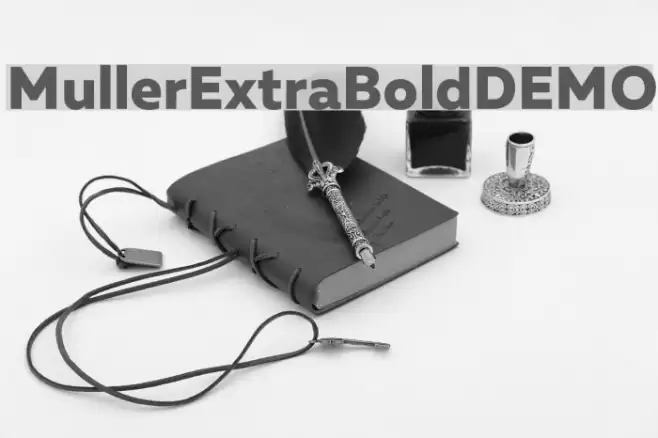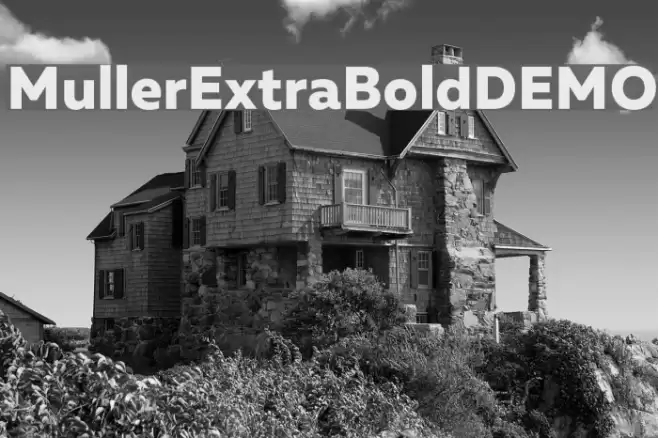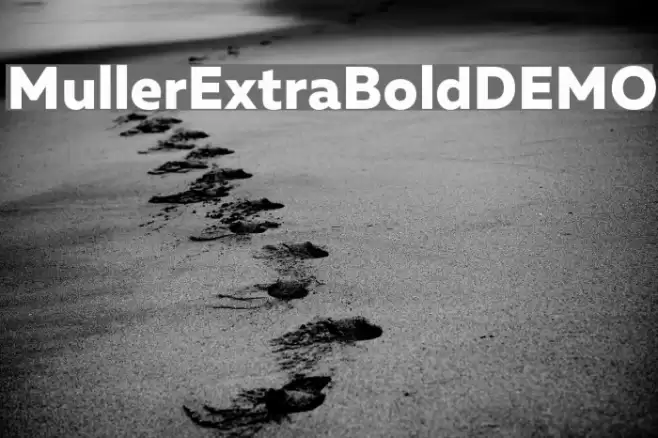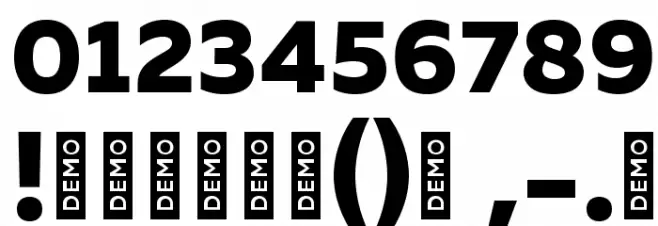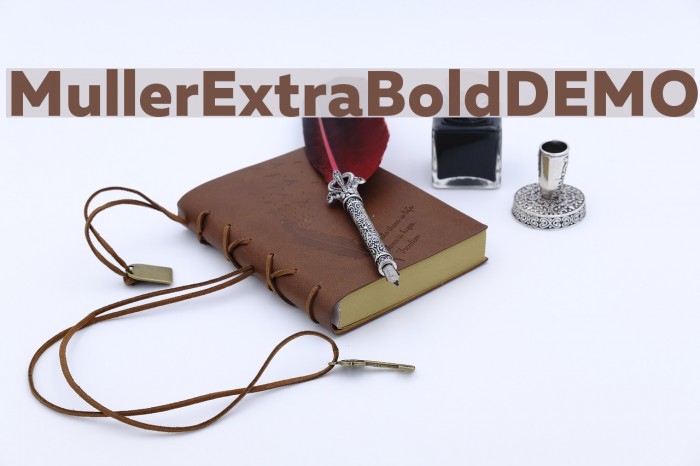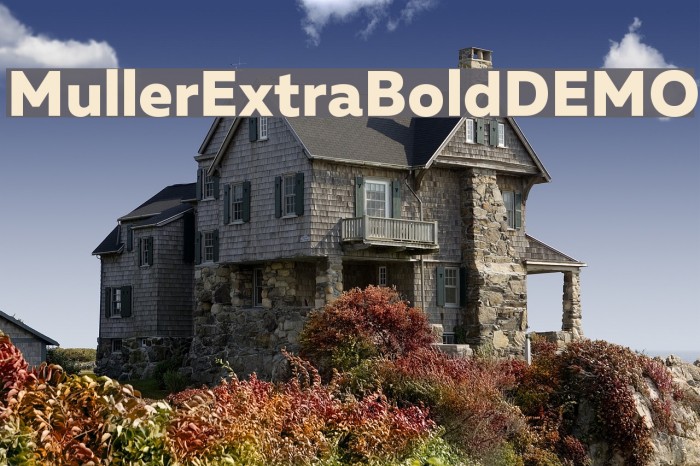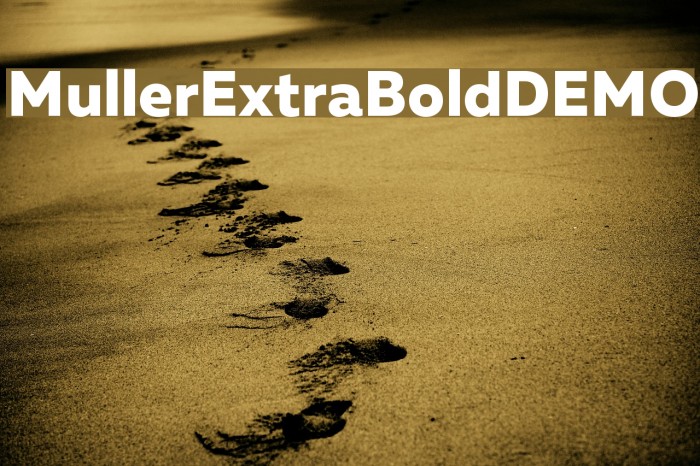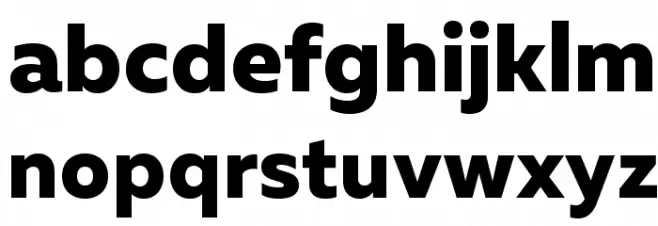
MullerExtraBoldDEMO Font
MullerExtraBoldDEMO Description
This font exhibits a bold and assertive style with clean, geometric lines and a modern aesthetic. The uppercase and lowercase letters are well-proportioned, offering a sense of balance and readability. The numerals are clear and distinct, making them suitable for various applications. The special characters maintain the same boldness, ensuring consistency across all glyphs. This font's extra bold weight makes it ideal for making strong visual statements, while its sans-serif design keeps it versatile and contemporary.
A bold, modern sans-serif font with geometric lines and strong visual impact from Uncategorized fonts.